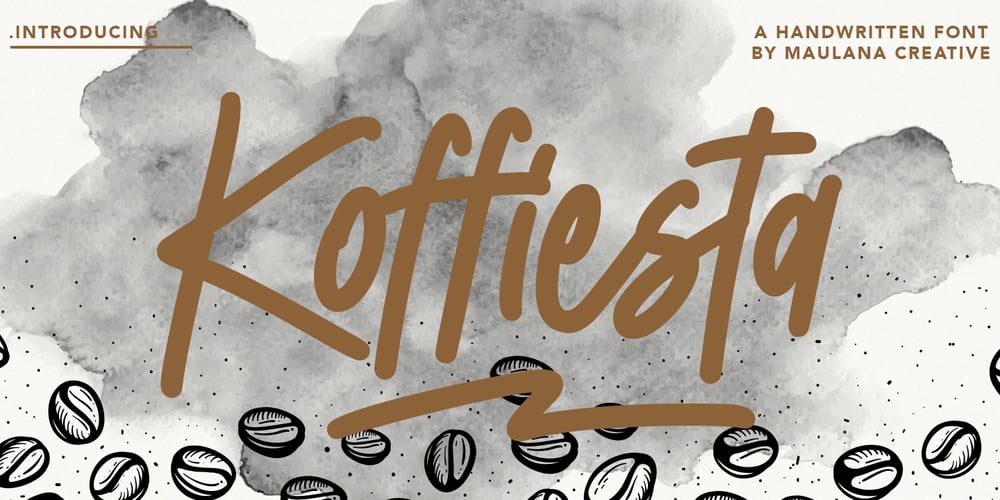
Koffiesta
Koffiesta font
Koffiesta Font Family was designed by Gilang Maulana and published by Maulana Creative. Koffiesta contains 1 styles and family package options. Give your designs an authentic handcrafted feel. � Koffiesta Handwritten Font� is perfectly suited to signature, stationery, logo, typography quotes, magazine or book cover, website header, clothing, branding, packaging design and more.